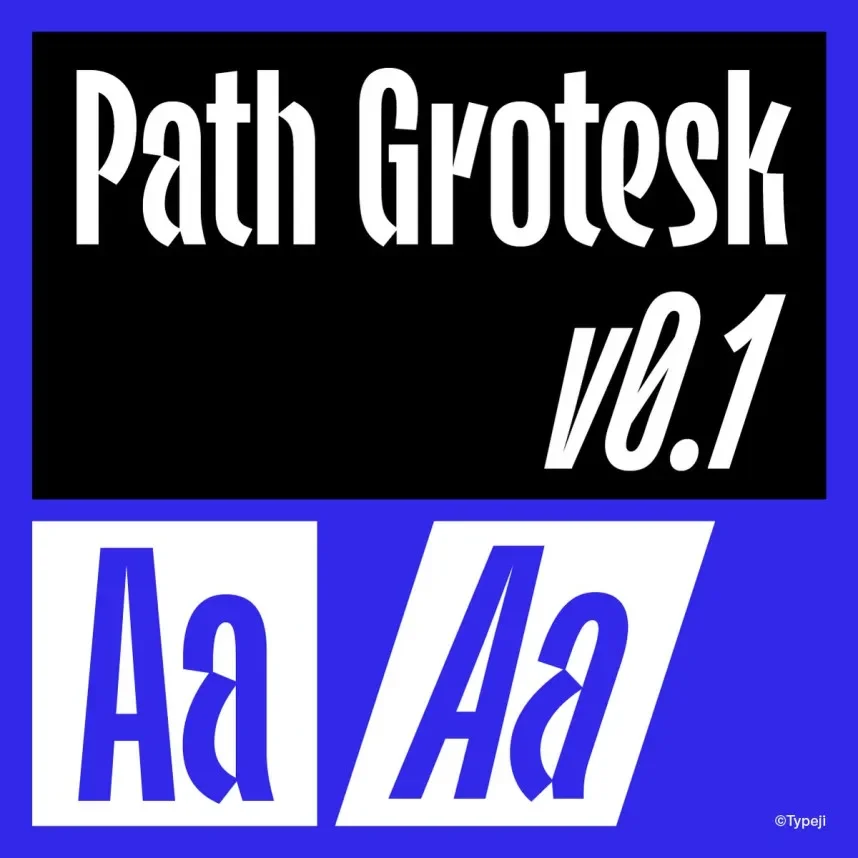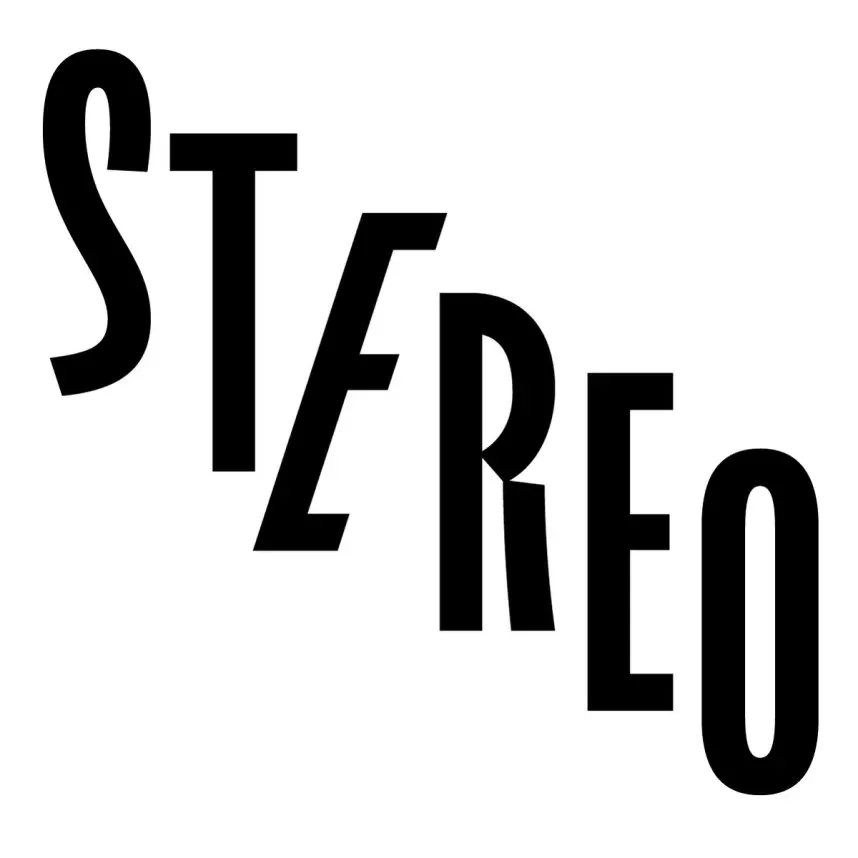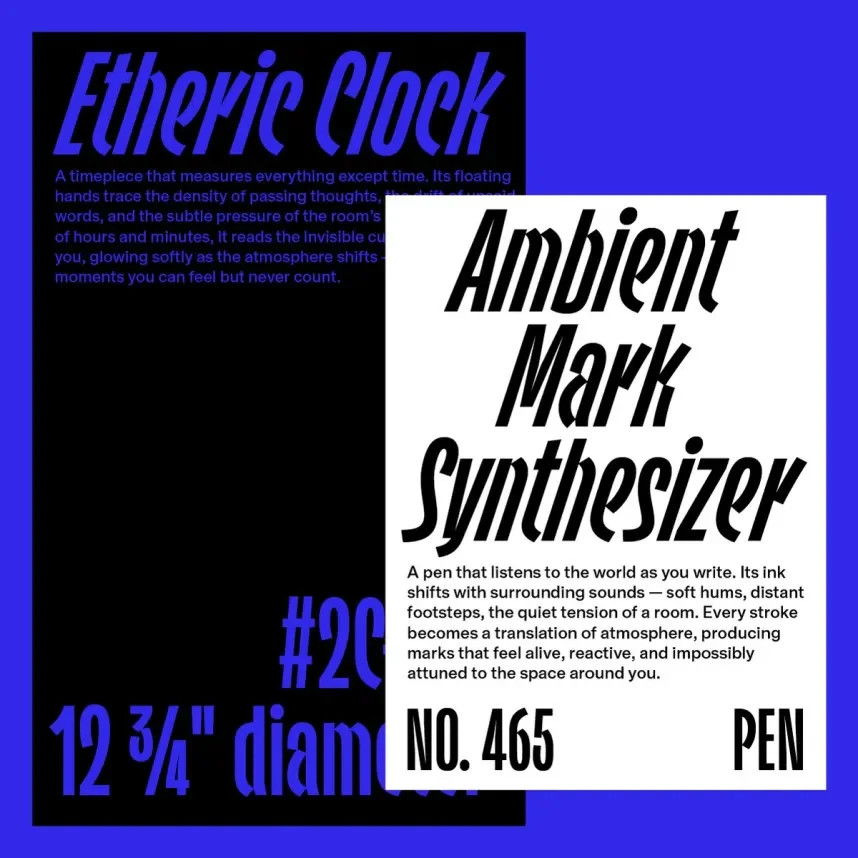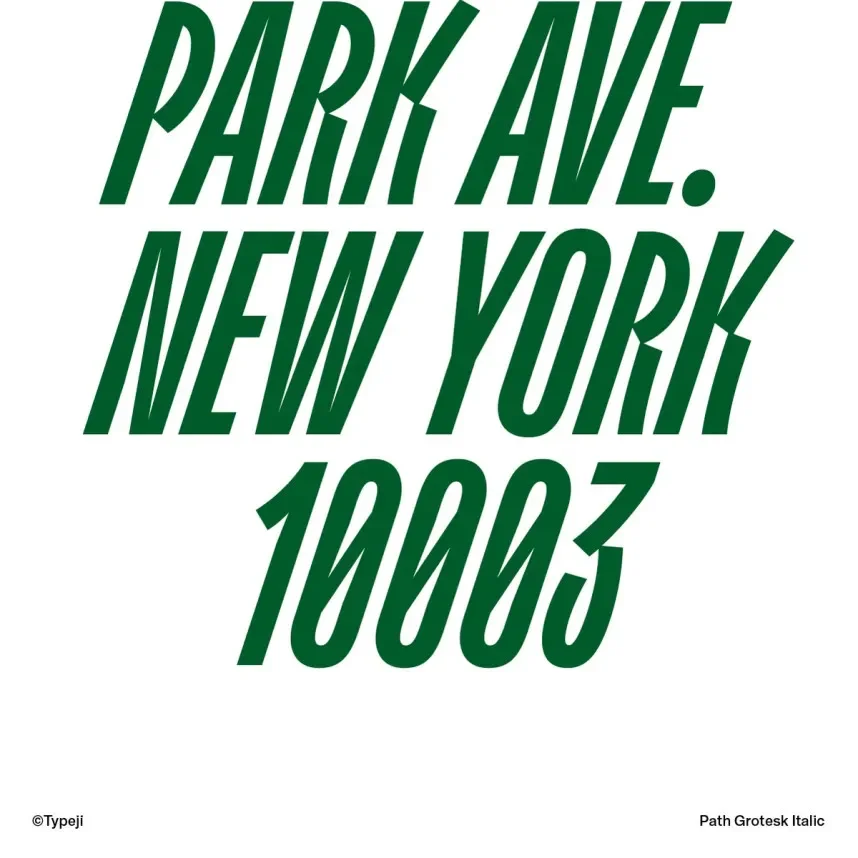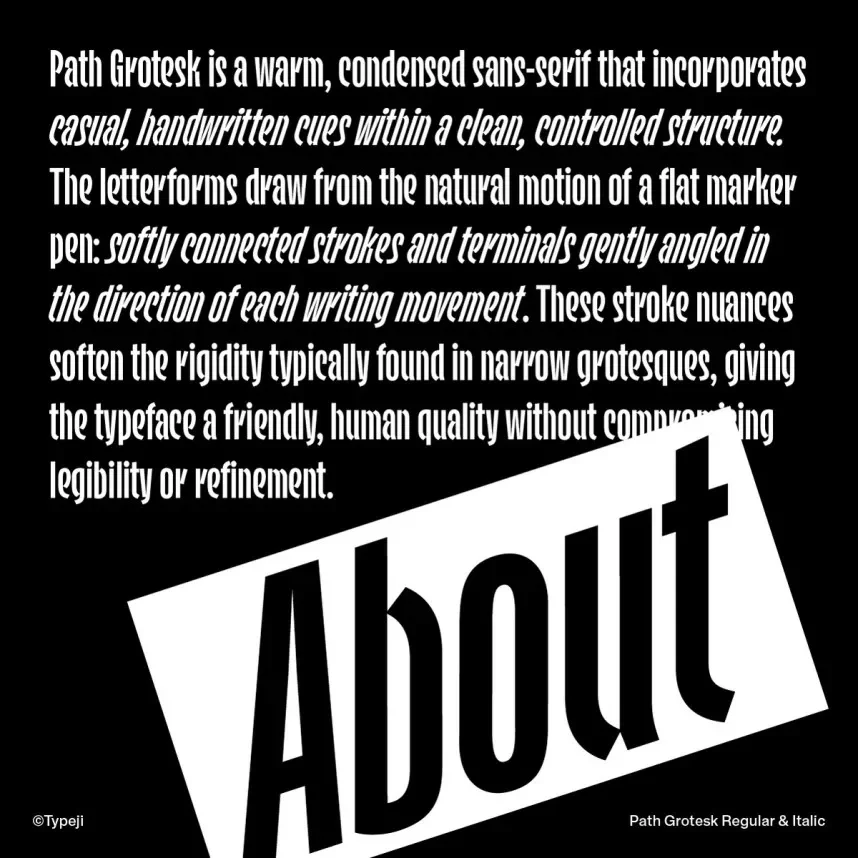
Path Grotesk Font addresses a common design issue: keeping text clear and consistent across digital and print systems. Many branding and UI projects need a sans-serif typeface that reads well at small sizes while staying neutral enough for logos and interfaces.
Path Grotesk is a modern sans-serif, often grouped within the grotesk category. Its letterforms follow a simple structure with low stroke contrast, open counters, and straight terminals. These features support legibility in user interfaces, navigation labels, and body text. The font avoids decorative elements, which helps maintain visual consistency across web design, mobile apps, and printed materials.
Designers frequently use Path Grotesk for brand identities, website headings, dashboards, and editorial layouts. It works well in both short text and longer reading blocks when line spacing is adjusted correctly. For layout balance, Path Grotesk pairs effectively with a serif font for headlines or a lighter-weight sans-serif for secondary text.